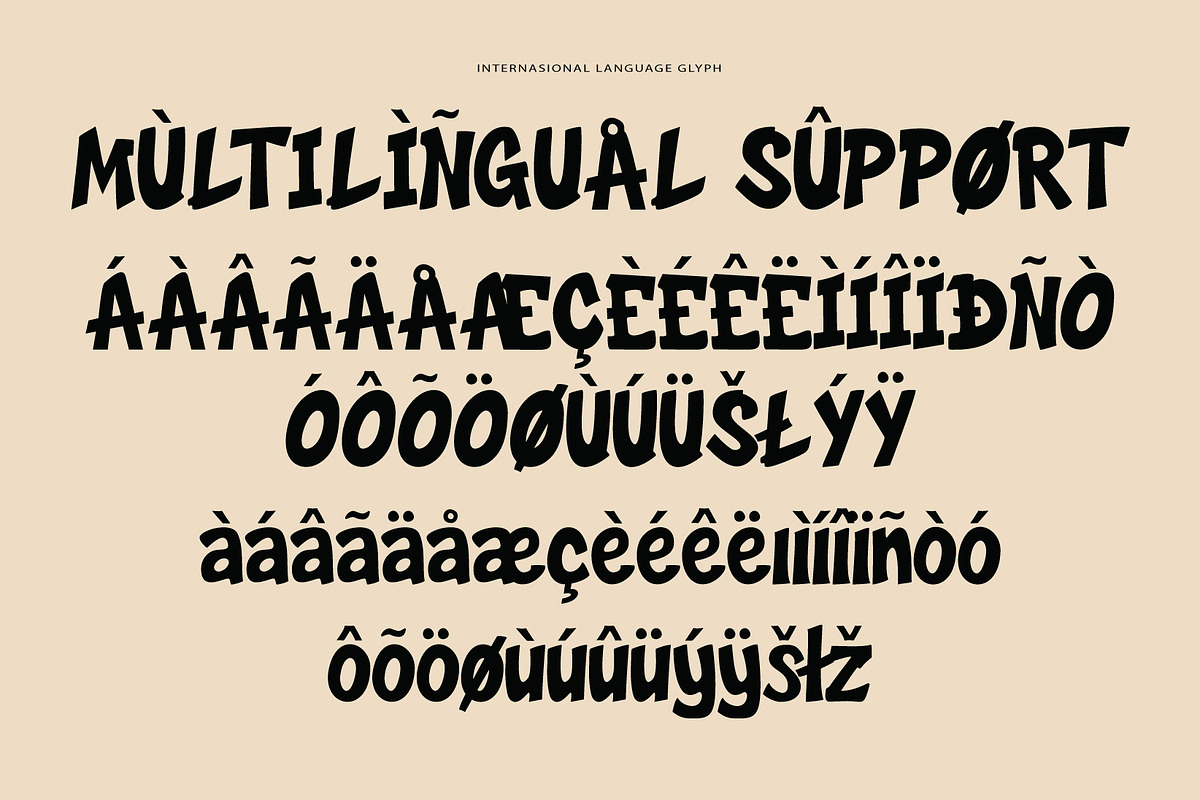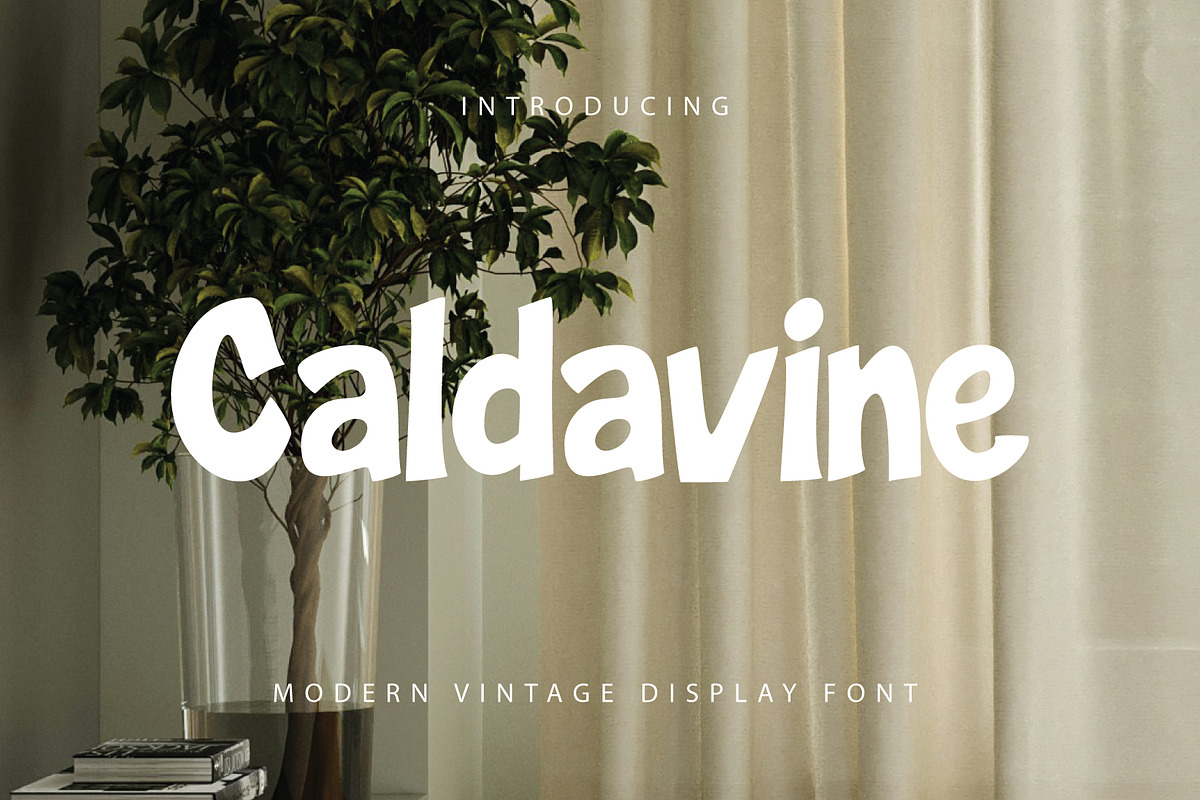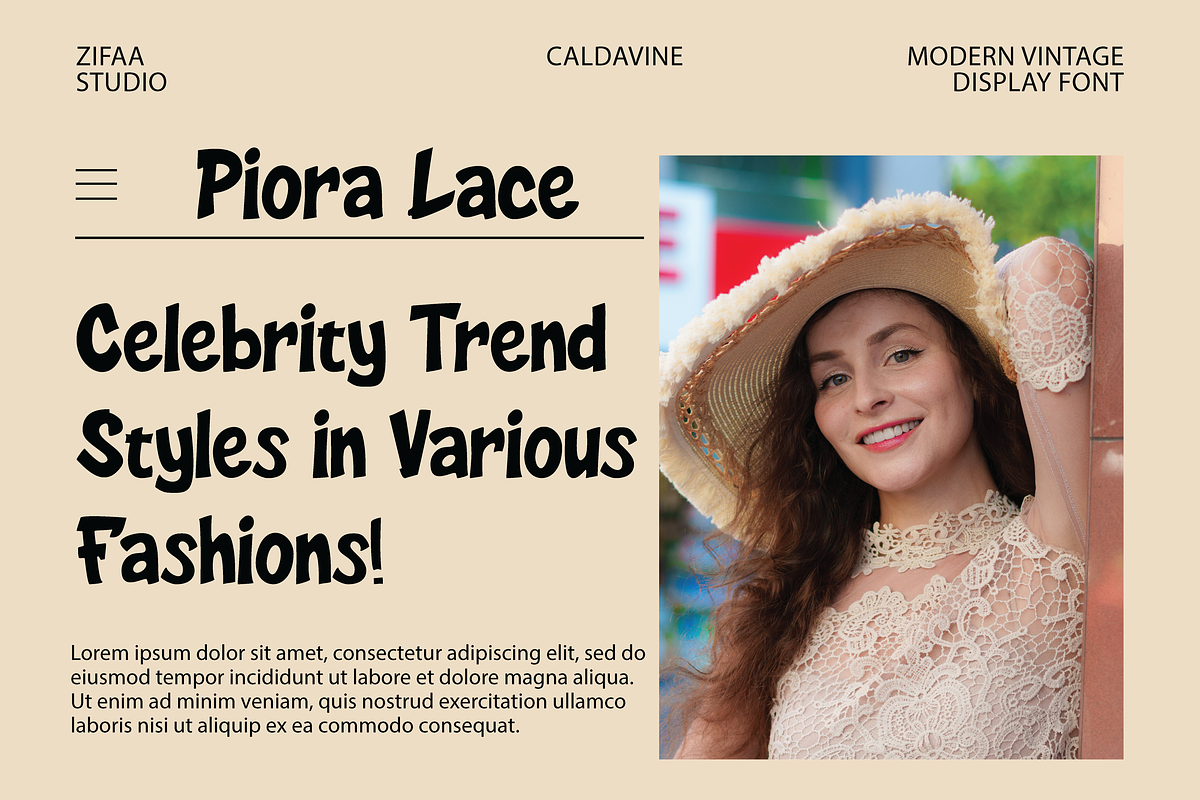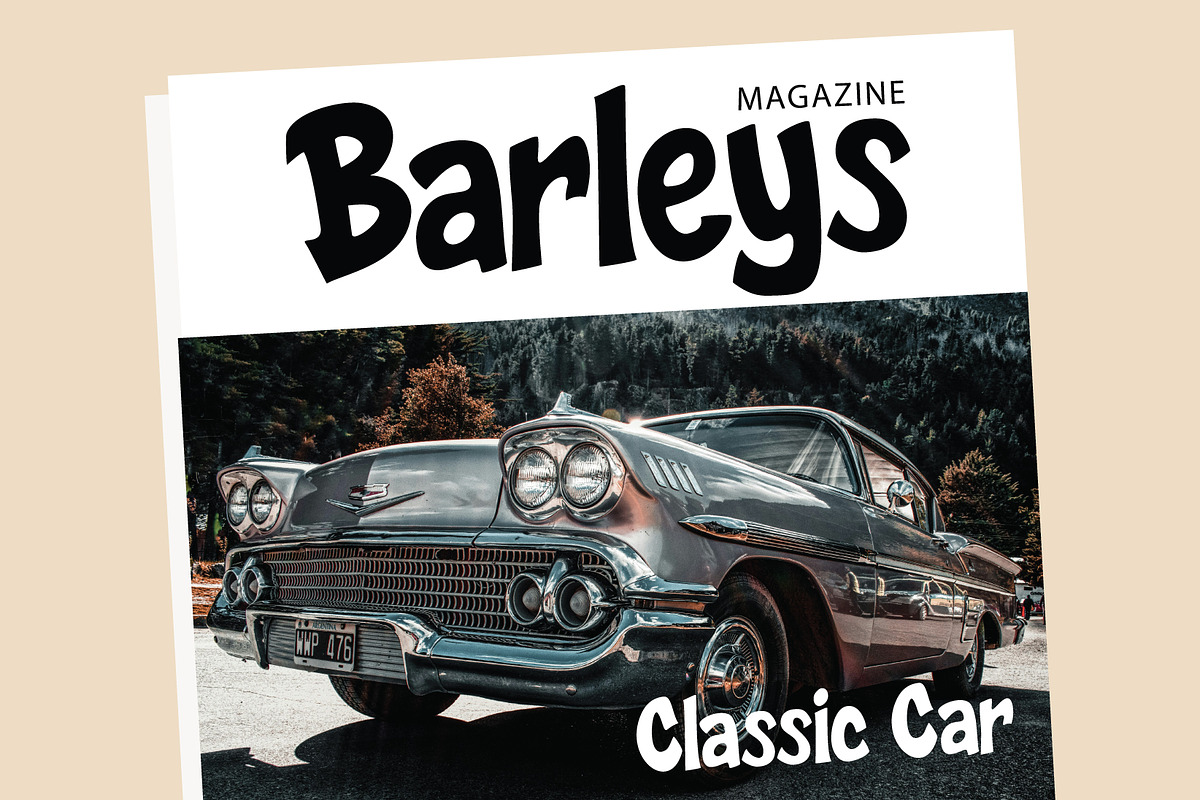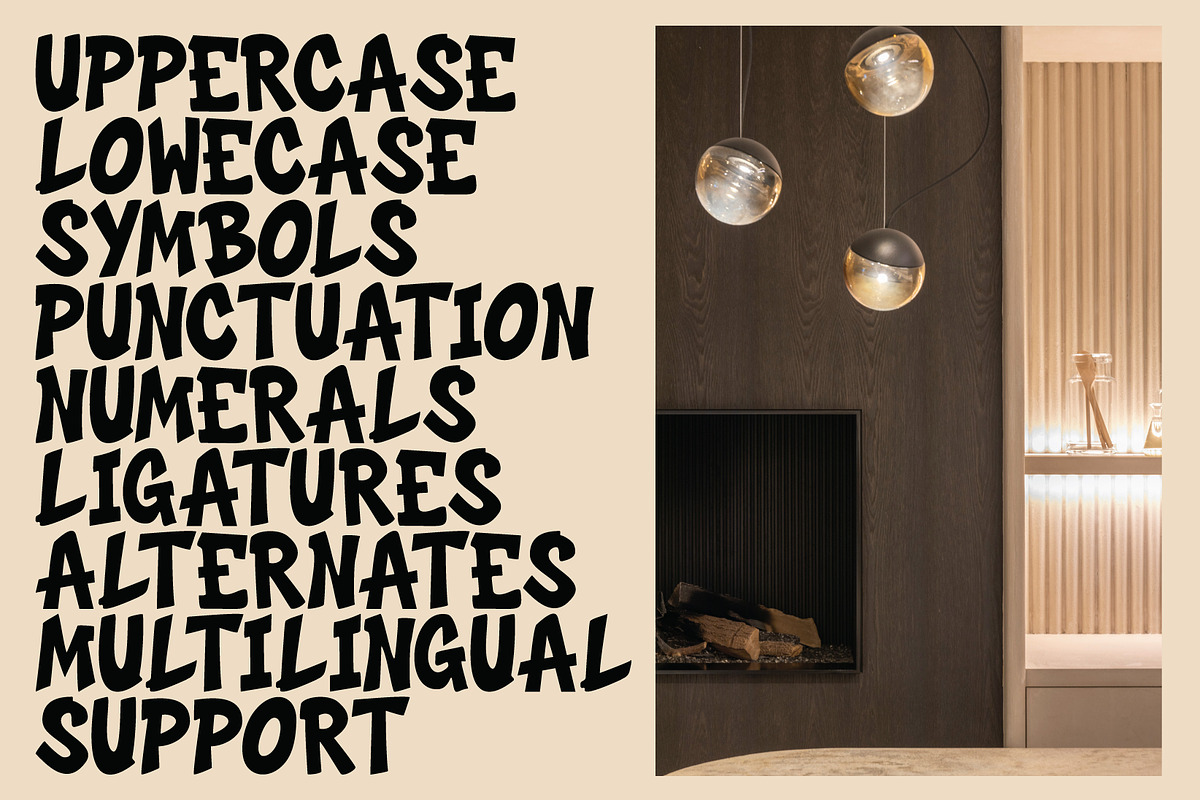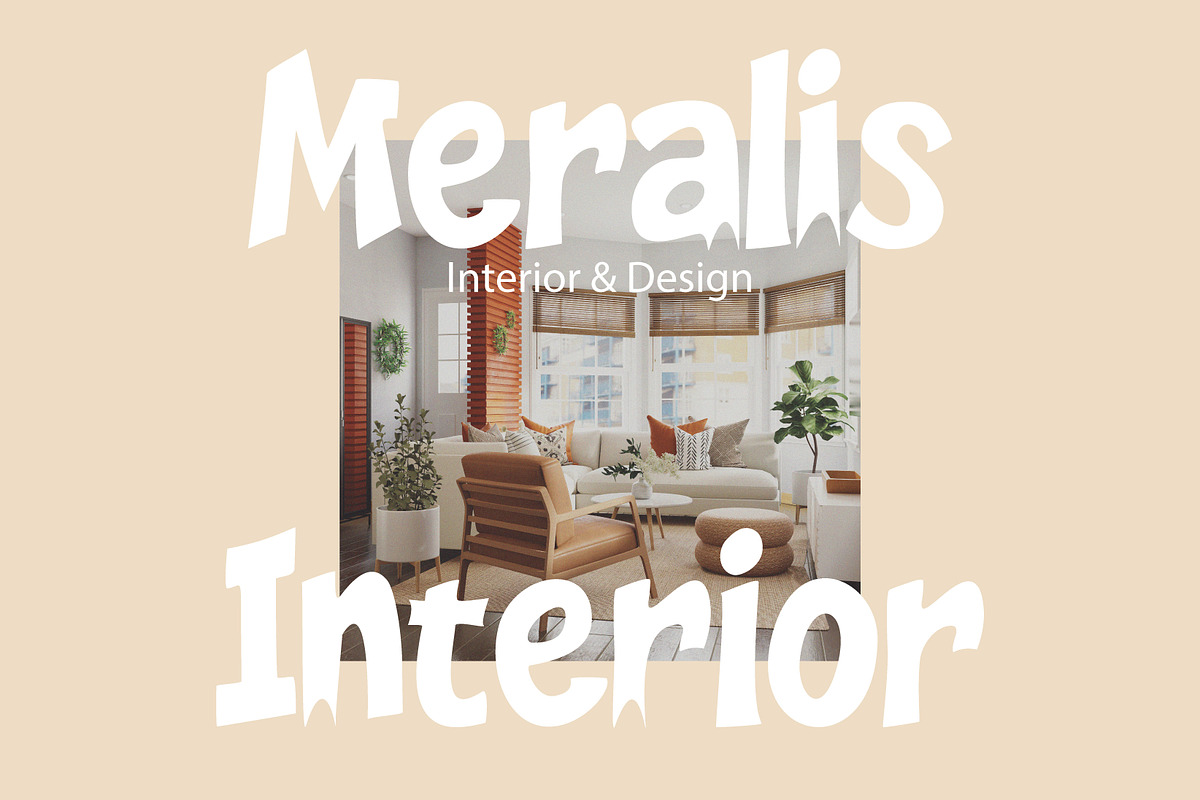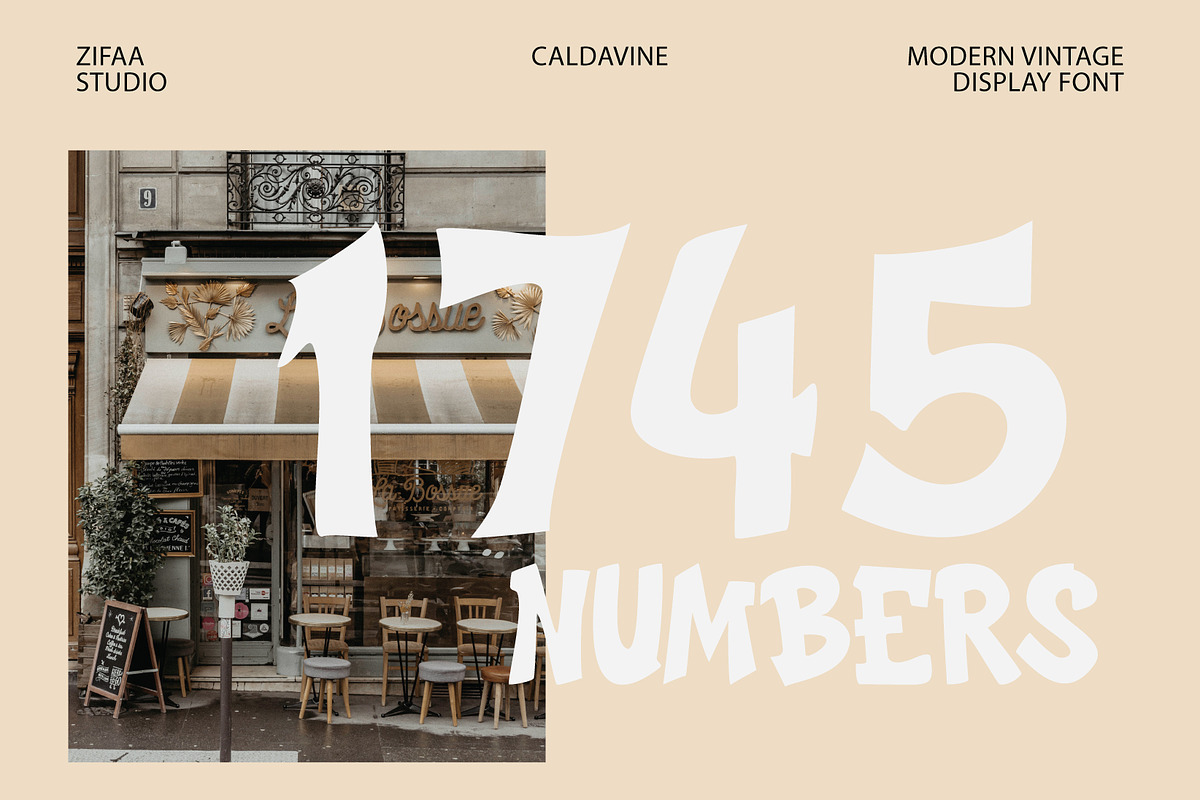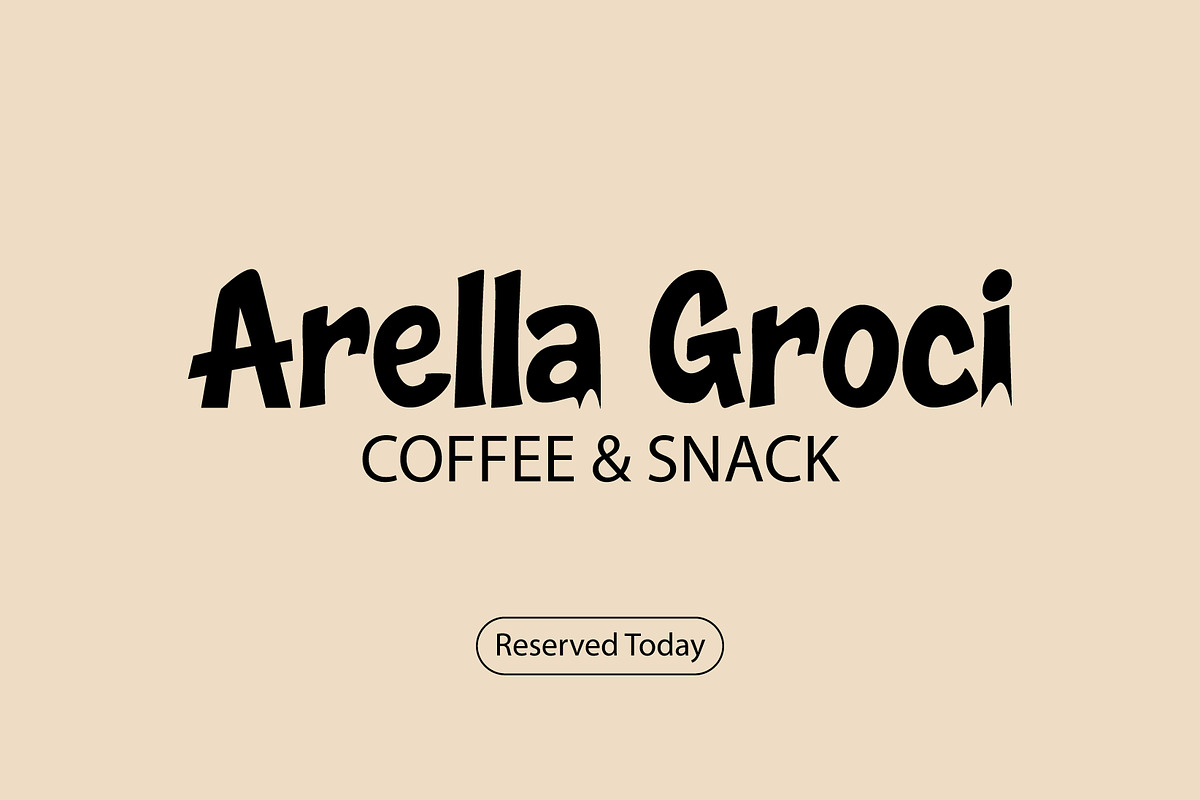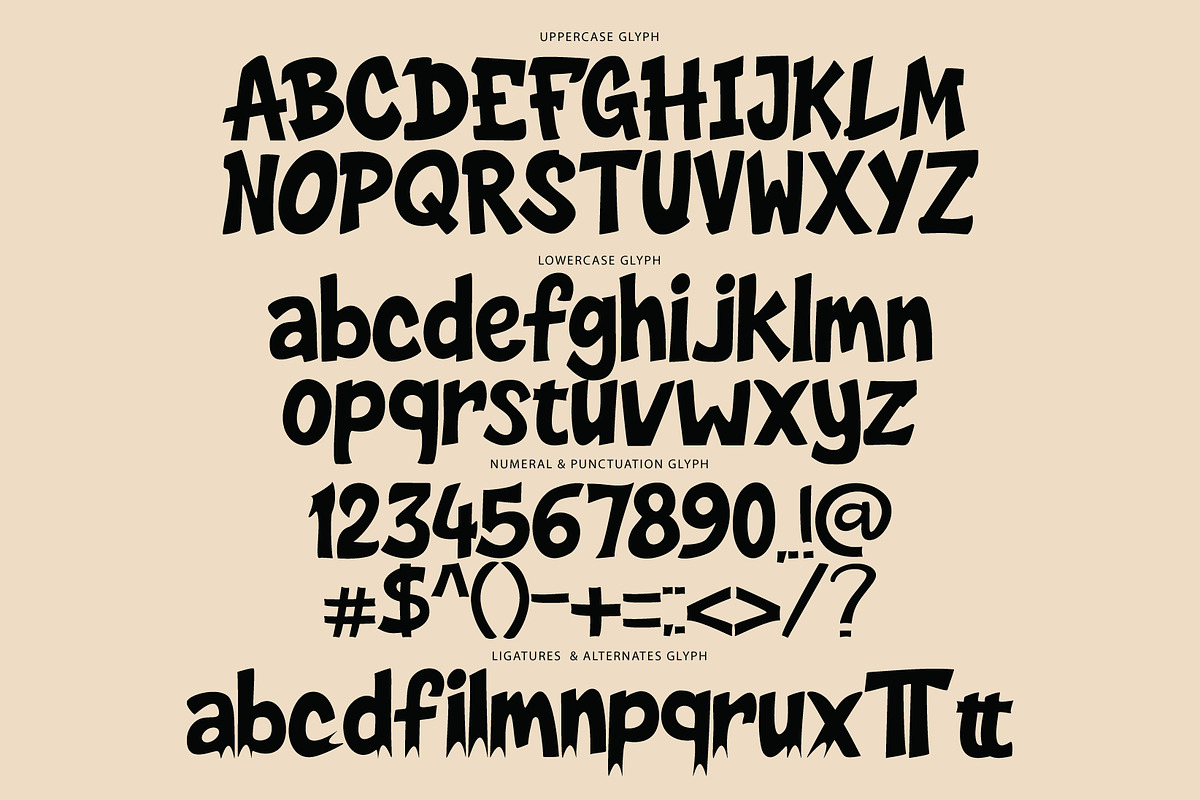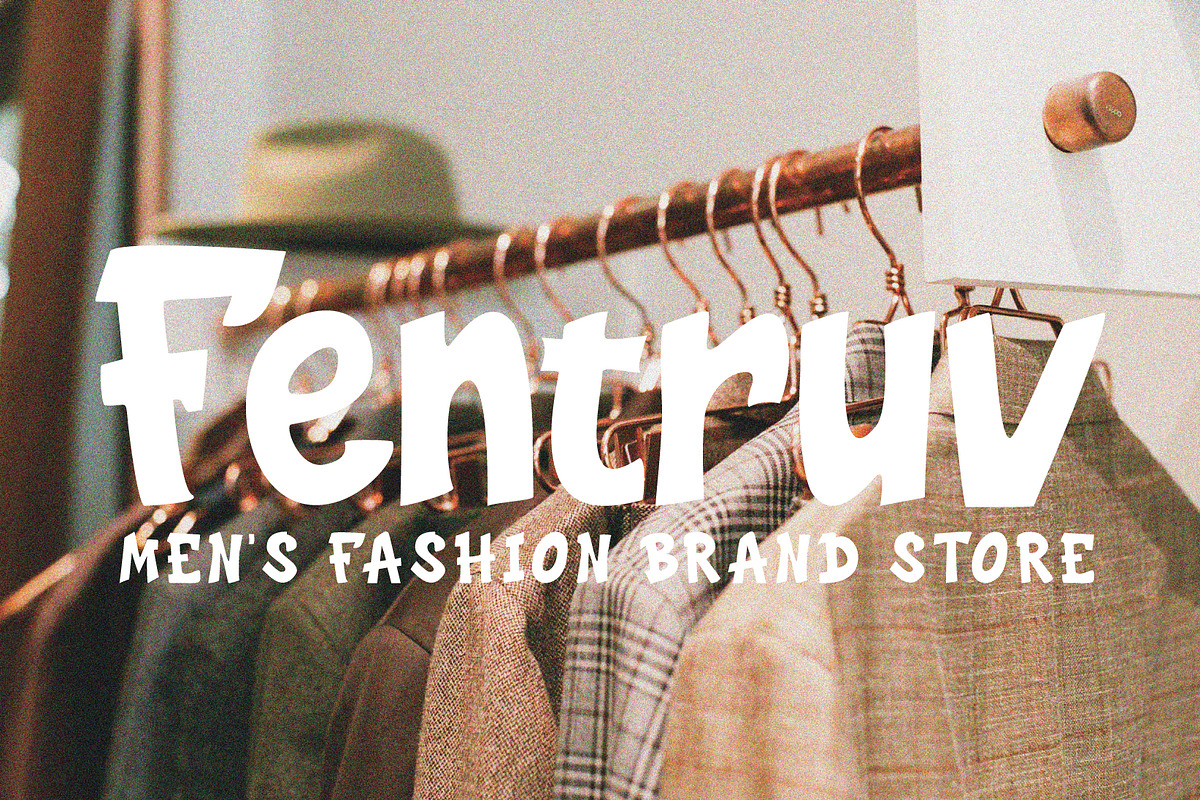
Caldavine Display
Caldavine Display is a modern-vintage typeface with bold, organic letterforms and a natural flow typical of hand-drawn styles. This font is designed to provide a warm, stylish, and slightly playful appearance, making it ideal for headlines and branding elements that require strong visuals and personality. With its soft curved details and unique letter proportions, Caldavine Display creates a classic yet contemporary feel. It is ideal for projects such as product branding, editorials, posters, packaging, labels, logos, social media, and even modern retro-themed aesthetic designs. Features: Full Uppercase & Lowercase Letters Numerals & Punctuation Character Alternates & Ligatures File Formats: OTF, TTF Thank You!